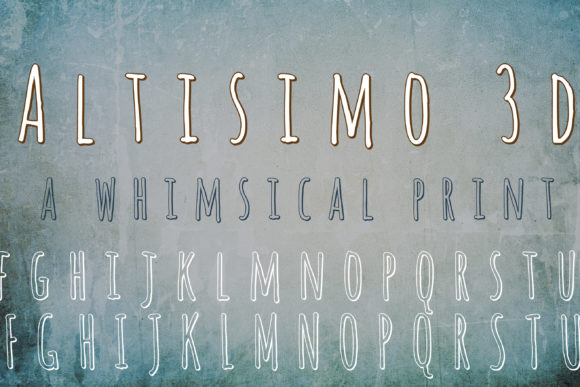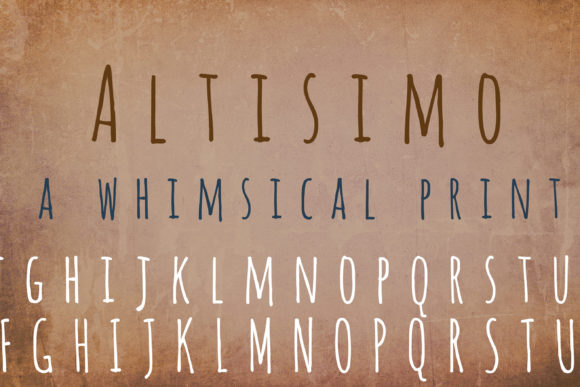
ZP Altisimo Font
Wide spacing is usually a setting, not a design decision. ZP Altisimo Font makes it the point: a hand-crafted print face drawn with extra-wide tracking throughout, so the gaps between letters carry as much of the look as the strokes do. Narrow brief, deliberate, and when it fits, nothing else on the page looks like it.
What you get is one hand-drawn display face, filed on Creative Fabrica under Script & Handwritten. The listing calls it a simple hand-crafted print with extra-wide spacing, and that spacing is the decision the whole face rests on. Check the product page for the current package contents.
It belongs where the word is the artwork and the empty space is part of the composition: seasonal cards, gift tags, chalkboard menus, apparel fronts, title cards, short logo lockups. It fights you the moment you need density. Paragraphs, captions and tight banner widths suffer, because wide-set letters eat horizontal room and at small sizes the gaps cost more legibility than they give back.